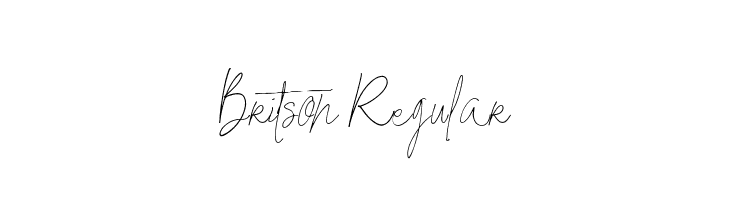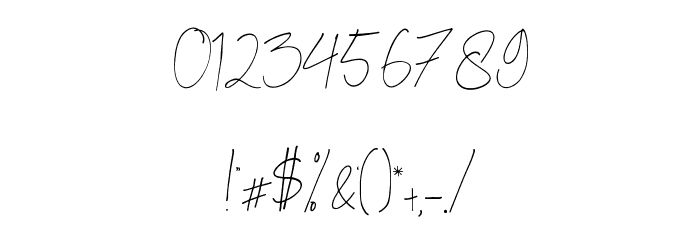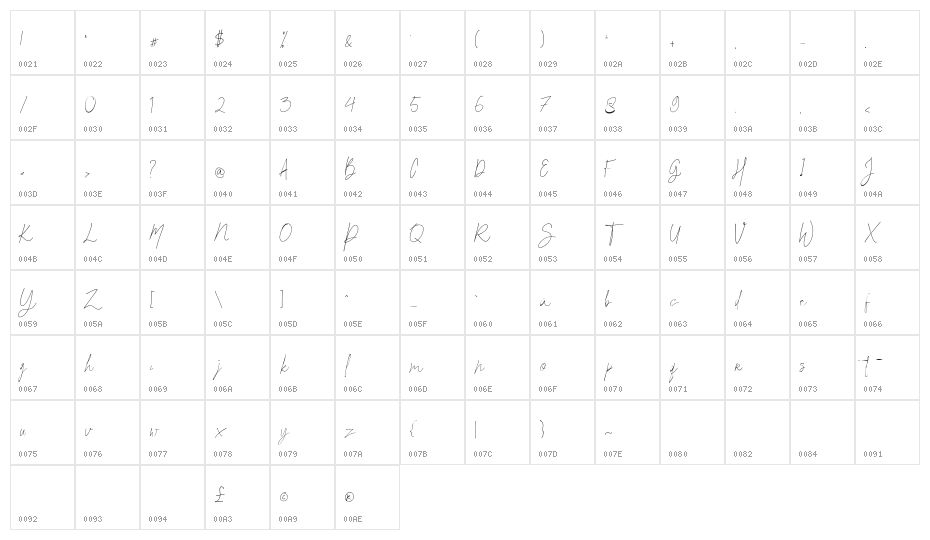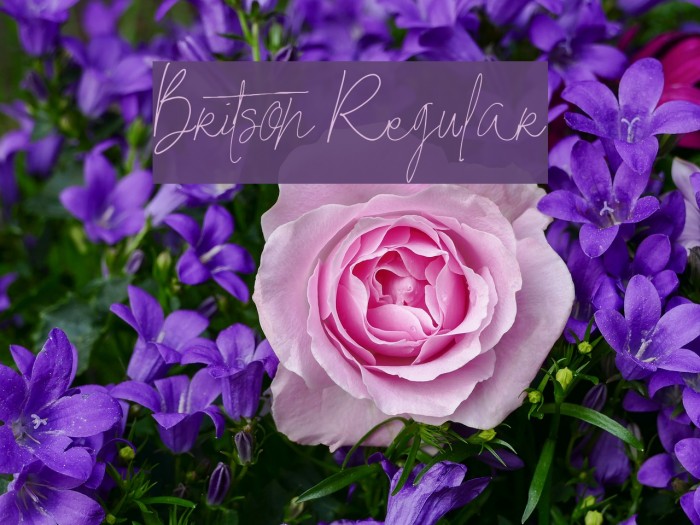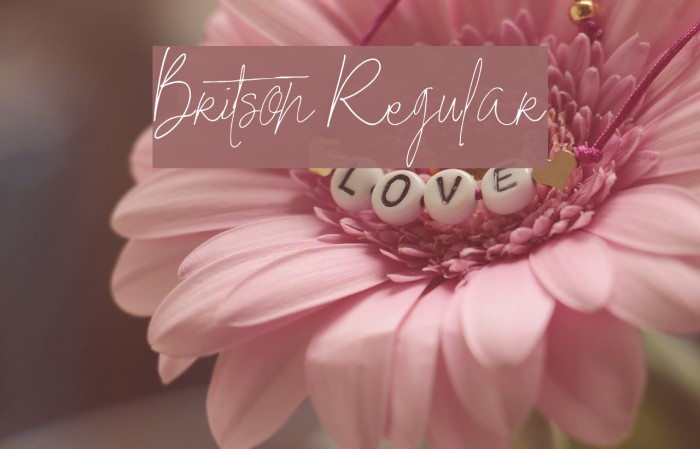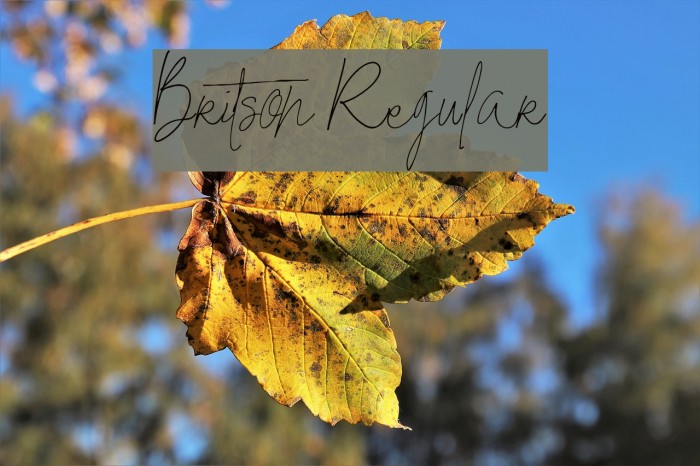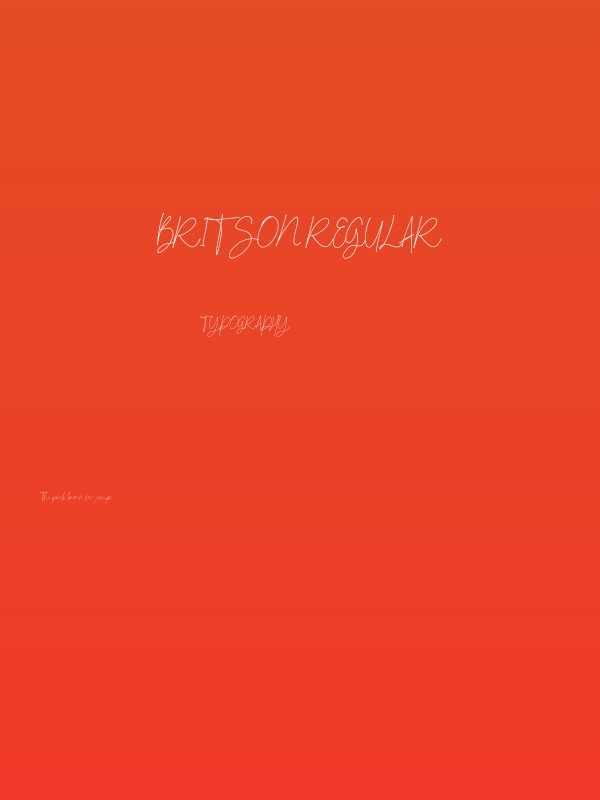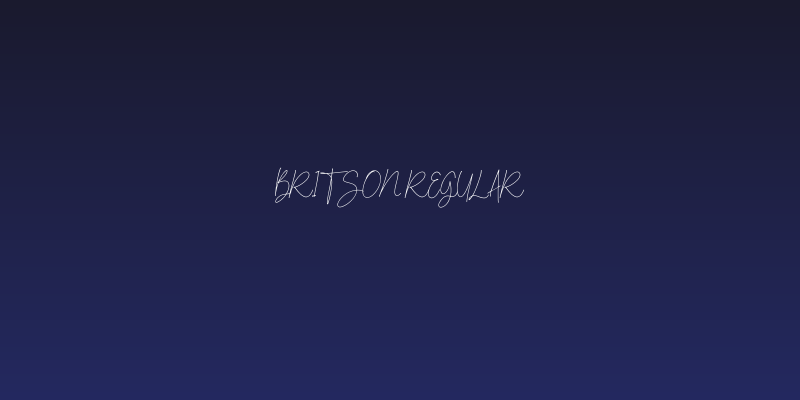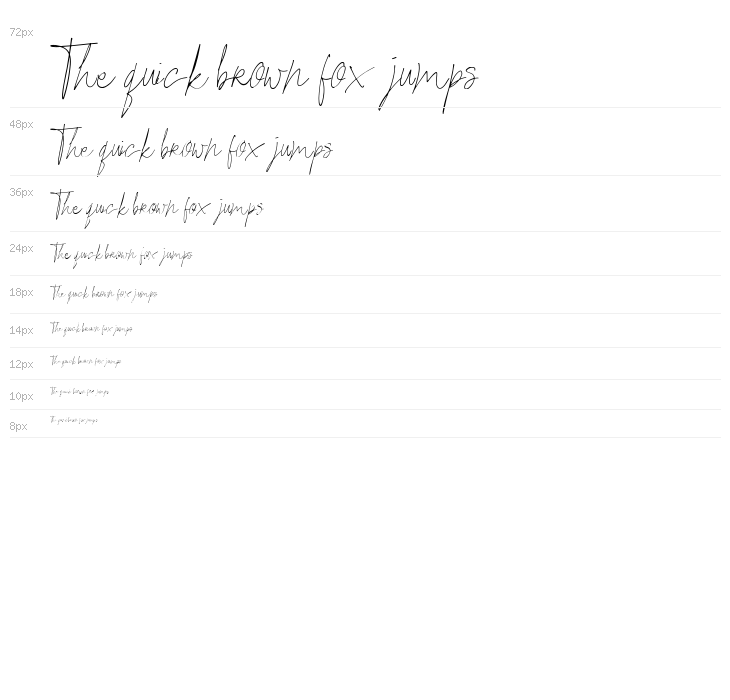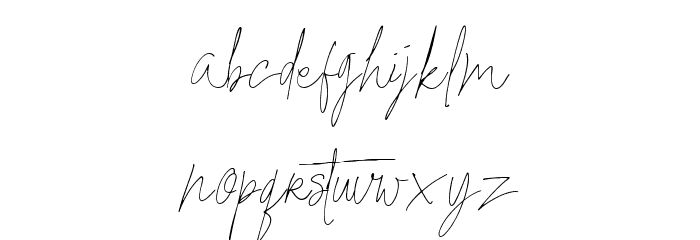
Britson Regular Font
Britson Regular Description
This font features a delicate and flowing script style, characterized by its elegant and elongated letterforms. The strokes are thin and graceful, giving it a sophisticated and airy appearance. The uppercase letters are particularly ornate, with sweeping curves and loops that add a touch of flair. The lowercase letters maintain a consistent style, complementing the uppercase with their own subtle flourishes. Numbers and special characters are designed with the same attention to detail, ensuring a cohesive look across all elements. This font's overall aesthetic is refined and artistic, making it suitable for projects that require a touch of elegance and creativity.
Overall StyleElegant, Artistic
Use CaseLogos, Invitations, Artistic projects
Proposed ProjectsIdeal for wedding invitations, elegant branding, personal stationery, and artistic projects.